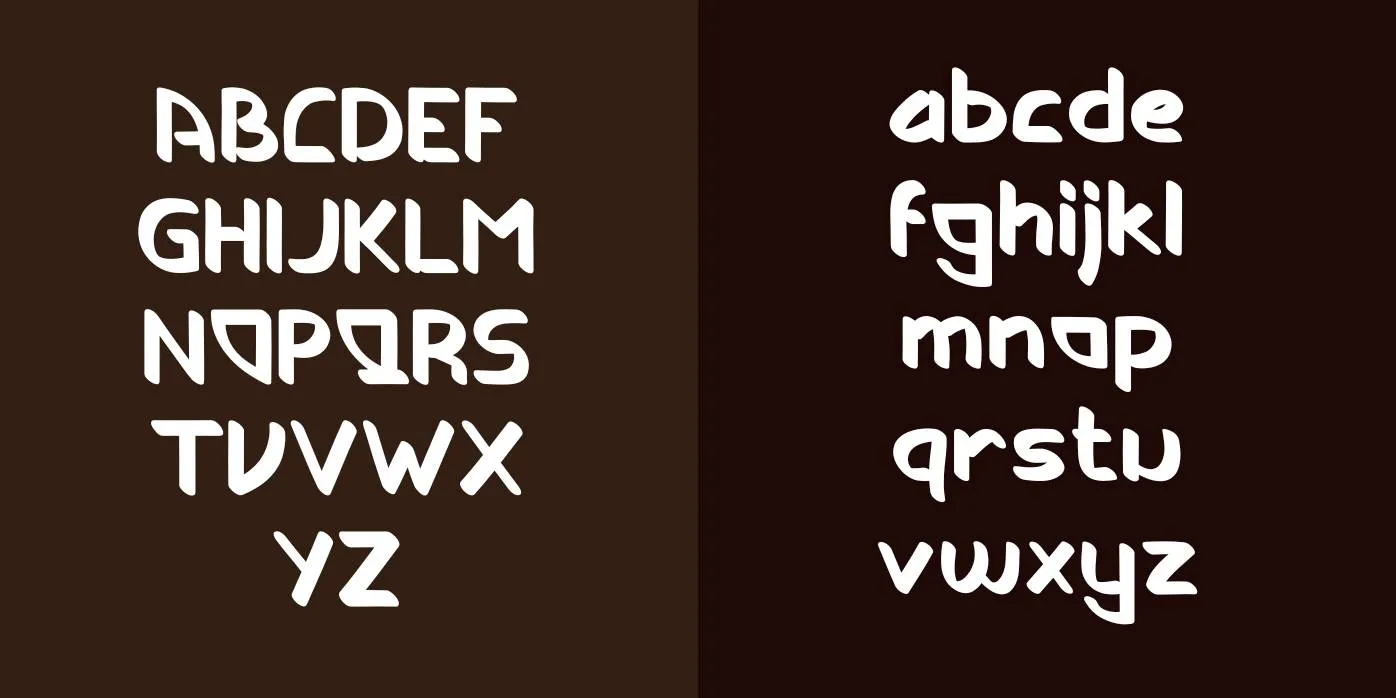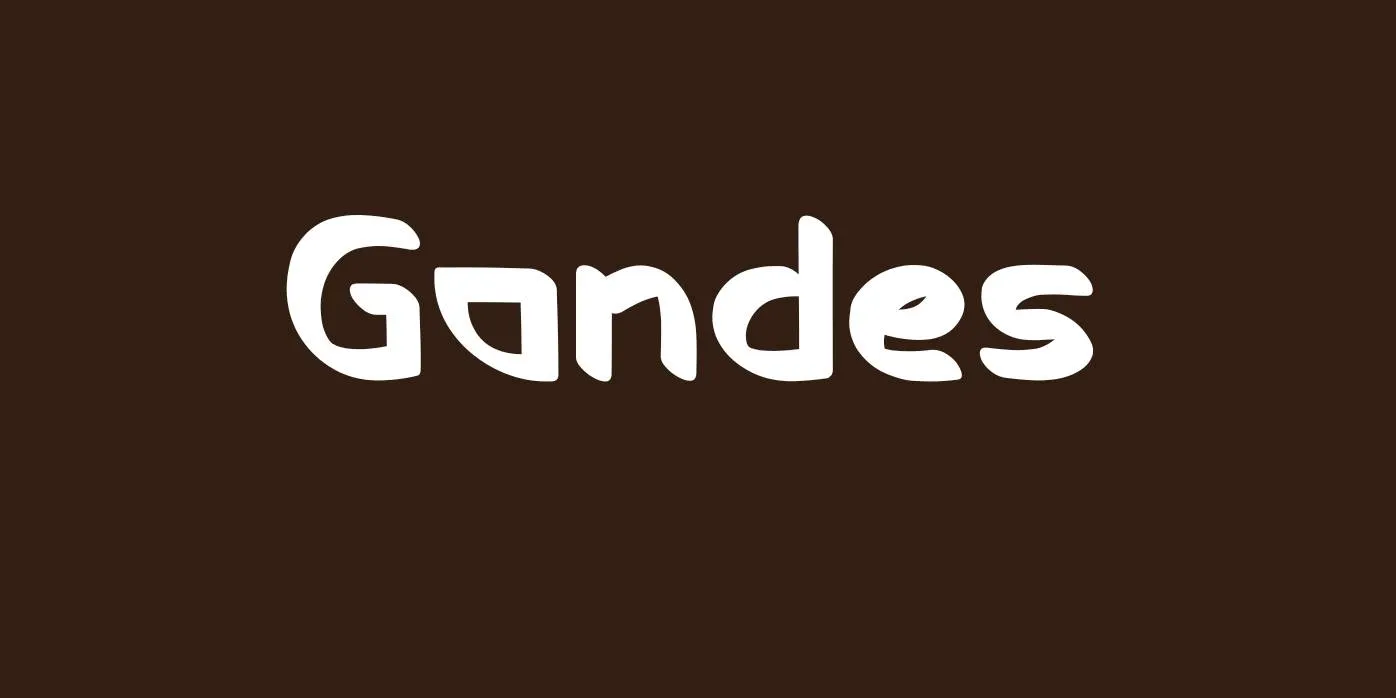
Gondes Font
Gondes font is a very unique and amazing fancy font and can be used to design various projects. It was designed by Sealound, who was a very famous typographic designer. It has different types of glyphs and characters which makes it perfect for many projects. This font was initially launched in October 2020.
You can also use this font for pairing with other fonts like baby bunny font to make your projects more attractive and beautiful. Usages It is also good for designing brochures and posters. To grab the attention of book readers this font is also a suitable choice for making book covers, novels, and magazines. This is not available to download from the adobe store but it is commonly used in both Adobe and Microsoft software.
It would be perfect for Business cards, Logo designs, Official Documents, and T-Shirt designs. The letters are wide and have a lot of negative space in between them. This allows the font to be very readable at small sizes. Gondes Font View Font Information Edit NameGondes Font DesignerSealound StyleFancy TypeOTF, TTF LicenseFree for Personal Use Download Gondes Font You can download this top-notch typeface by clicking on the download button below, the file is free for personal use only.
The is a stylish, unique and easy to read typeface design. Is Gondes font Professional? Yes, This Font is a professional font. To grab the attention of book readers this font is also a suitable choice for making book covers, novels, and magazines.